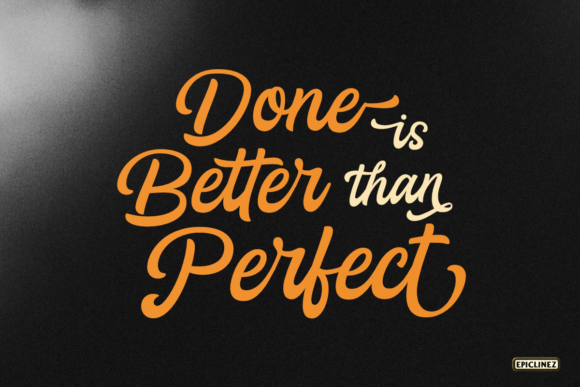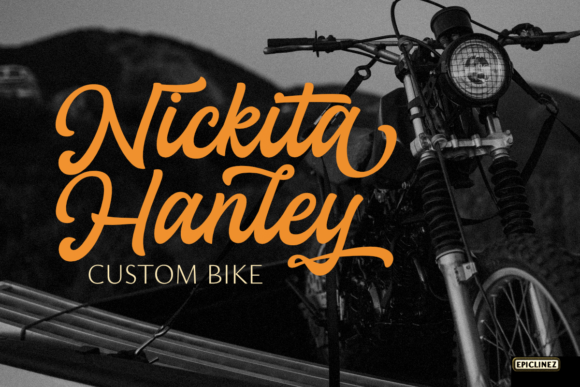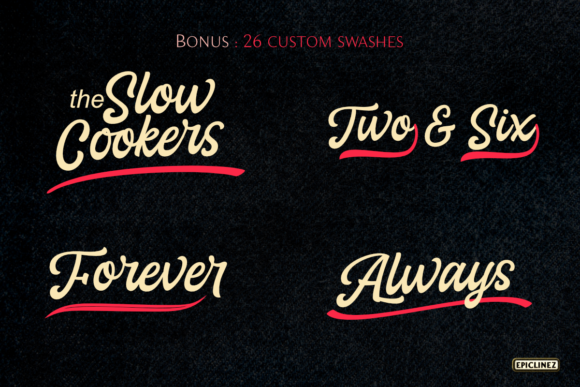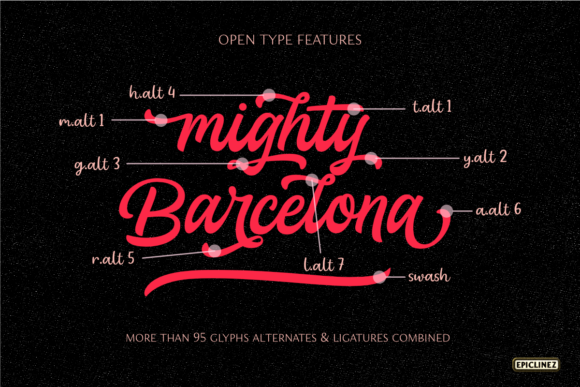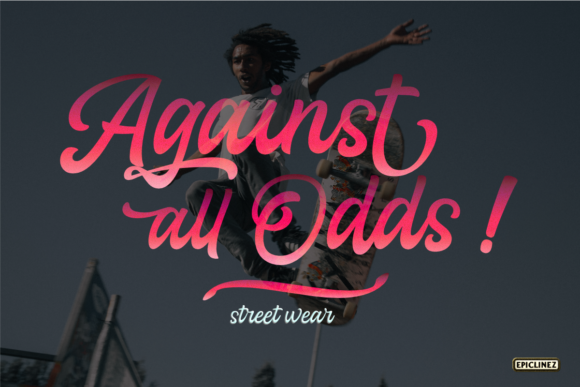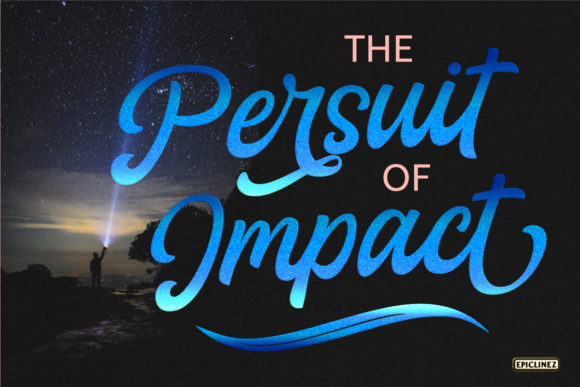
Introduction to Motoride Font
Have you ever been stuck on a design project, searching for the perfect font to bring your creative vision to life? I know I have. And then, like a breath of fresh air, I stumbled upon the Motoride Font – a high-quality, authentic handwritten font that instantly elevates any design project. Its vintage style is a game-changer, adding a timeless touch to logotypes, apparel, branding, packaging, and even Instagram quotes.
- Designed with a modern aesthetic, perfect for branding and marketing materials
- Includes a range of characters, including uppercase and lowercase letters, numbers, and punctuation
Honest Review: Motoride Font
One of the things that caught my eye was the unique aesthetic of the font. It’s perfect for any project that requires a modern and edgy feel. The font comes with a transparent background, which makes it incredibly versatile and easy to use.
- Unique aesthetic ✨
- High-quality design ✨
- Not suitable for formal or traditional projects ⚠️
- May not be suitable for small font sizes ⚠️
Overall, I’m really impressed with the Motoride Font. It’s a fantastic design resource that’s perfect for creative projects. The only limitations I’ve found are that it’s not suitable for formal or traditional projects, and may not work well in small font sizes. However, for most projects, it’s a great choice. I highly recommend giving it a try!
Motoride Font is a high-quality, free download design resource ideal for creative projects that require a modern and sleek aesthetic. This font is versatile and can be used in various design applications, including graphics, logos, and text-based designs.
Tips for Getting the Most Out of Motoride Font